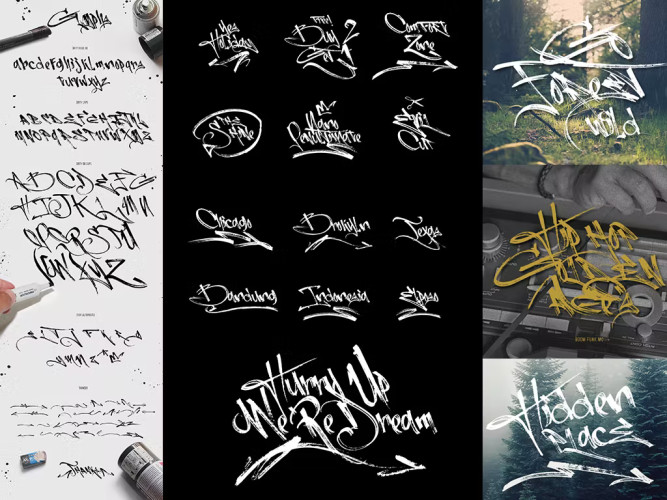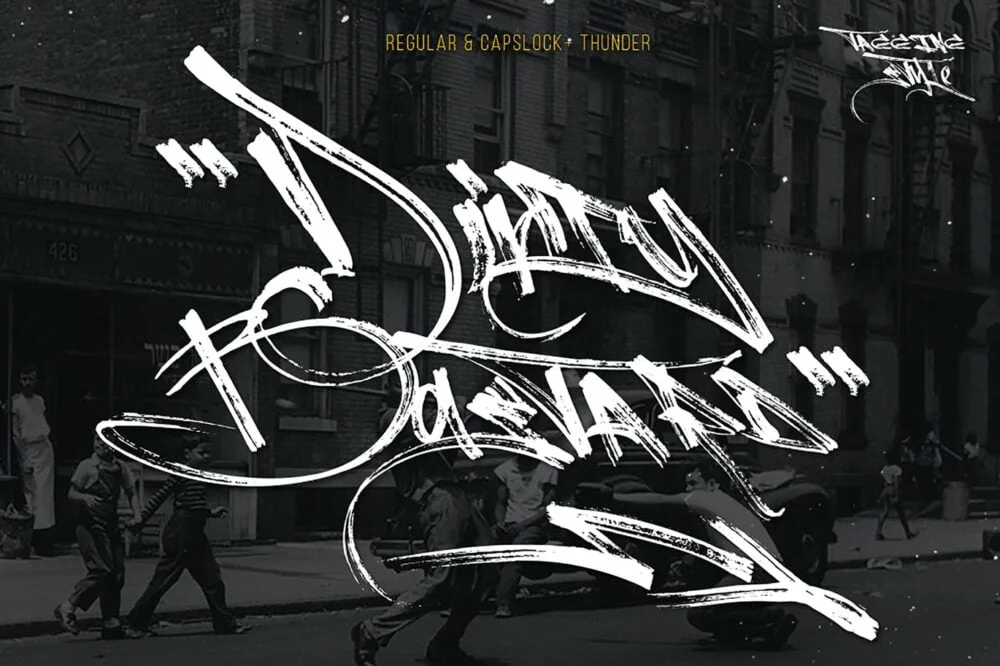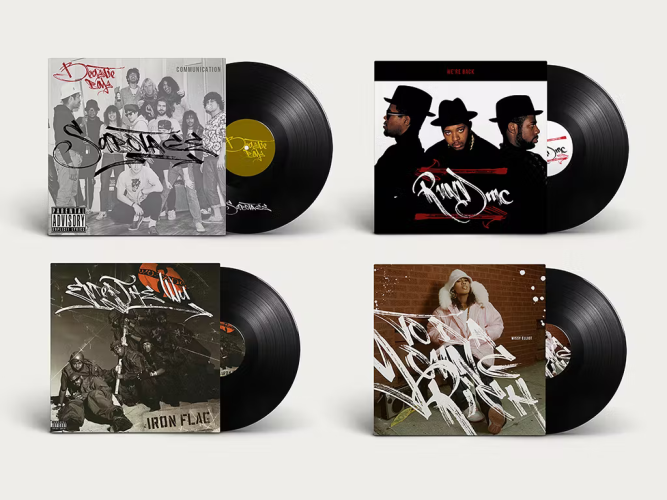
Burnts Maker Font
Burnts Maker Font born from vandals, bomber, street art, fast technique about writing, hip-hop, gravity, very suitable for Music promotion, cover Album, promotion, Gigs or anything else. Burnts marker come with Tagging style, you could make like D.I.Y maker personally
Burnts Maker Font is a Script And Handwritten font that brings a professional and versatile look to your projects. Burnts Maker Font born from vandals, bomber, street art, fast technique about writing, hip-hop, gravity, very suitable for Music promotion, cover Album, promotion, Gigs or anything else.